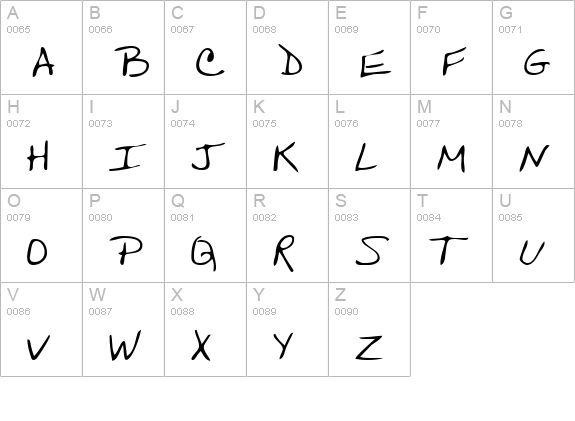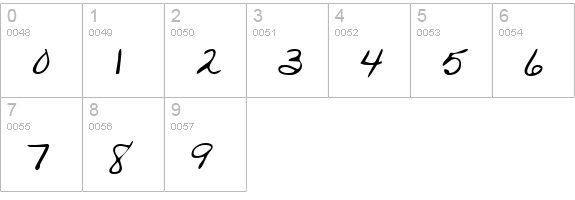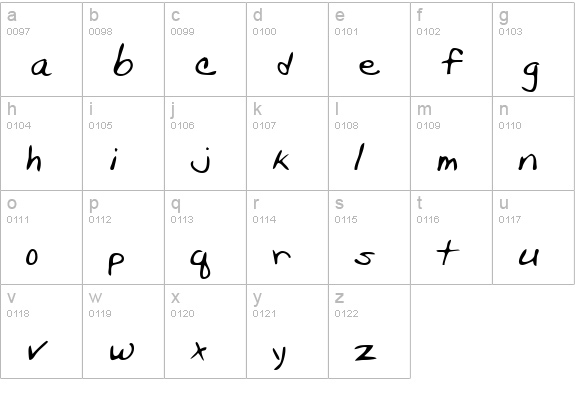
TriciasHand Regular Font Details
TriciasHand Regular is the standard, neutral variant in the TriciasHand typeface family \xE2\x80\x94 well suited to general body text, paragraphs, and standard typographic work.
TriciasHand Regular font is a charming and versatile typeface that adds a touch of elegance to any design project. With its delicate curves and graceful letterforms, this font captures the beauty of handwritten calligraphy. Whether you're creating wedding invitations, branding materials, or simply adding a personal touch to your digital content, TriciasHand Regular font is the perfect choice. This font offers a wide range of options, from thin and delicate strokes to bold and expressive lines. Its versatility allows you to create a variety of moods and styles, making it suitable for both formal and informal designs. With its smooth and flowing characters, TriciasHand Regular font brings a sense of sophistication and refinement to your typography. One of the best things about TriciasHand Regular font is that it is free to download. You can easily access this font at FontsMarket.com, where it is available for immediate and unrestricted use. Whether you're a professional designer or a hobbyist, you can now enhance your projects with this beautiful font without spending a dime. TriciasHand Regular font is the perfect choice for those who appreciate the beauty of handwritten calligraphy and want to bring a touch of elegance to their designs. Its free availability makes it even more accessible to a wide range of users, allowing them to create stunning and professional-looking projects without breaking the bank. So why wait? Download TriciasHand Regular font today and add a touch of sophistication to your next design endeavor.